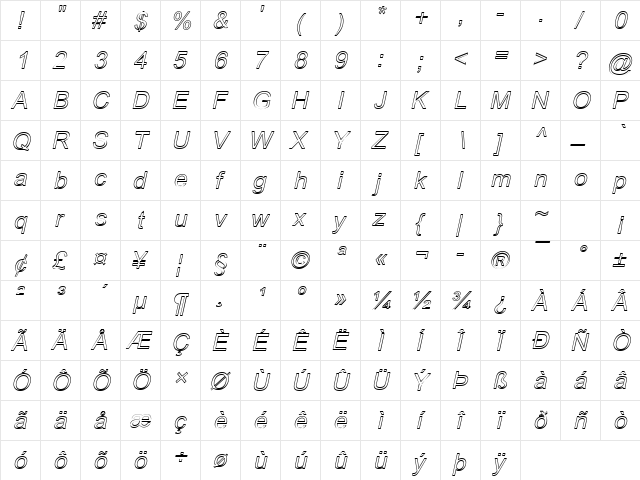
Antenna Regular Font Preview
Antenna Regular
Antenna Regular Font Details
Design Context for Antenna Typeface
Antenna takes a measured approach to typography — its balanced proportions and neutral character make it a reliable workhorse for both digital and print work.
Pro Tip: Use Antenna in both headline and body roles to test its range before committing to a single application.